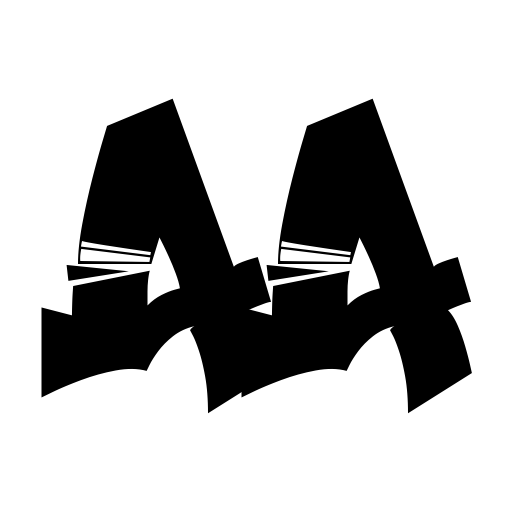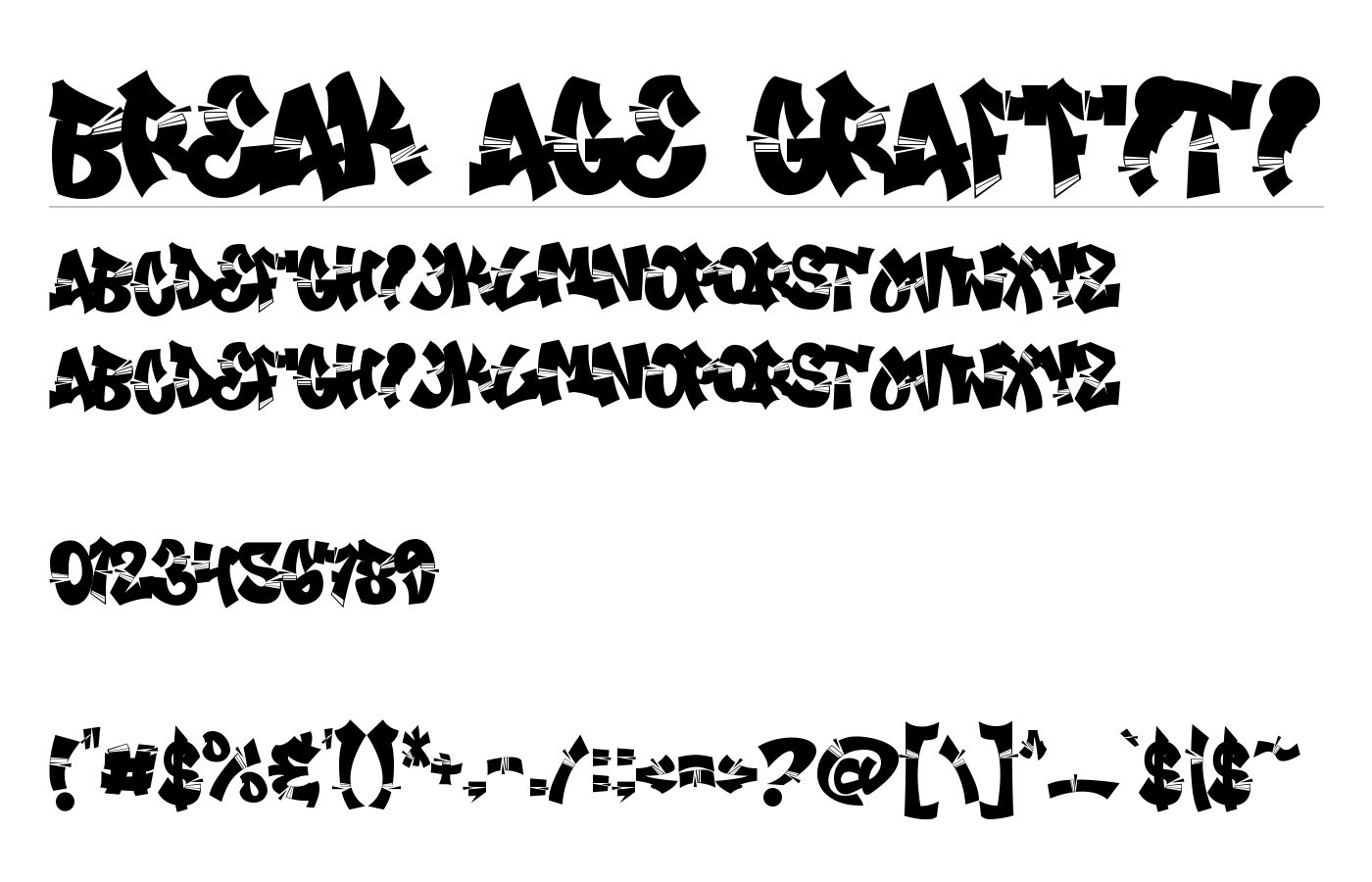
Break Age Graffiti is a bold and dynamic display font inspired by urban street art. Its thick, angular letterforms with sharp edges and decorative stripes create an energetic, edgy vibe perfect for eye-catching designs that demand attention. Ideal for logos, posters, and youth-oriented branding, this font brings a rebellious, gritty personality to any project.
Break Age Graffiti Font
About Break Age Graffiti Font
| Font family | Break Age Graffiti Font |
| Designer | Muhammad Panji Ramdhani |